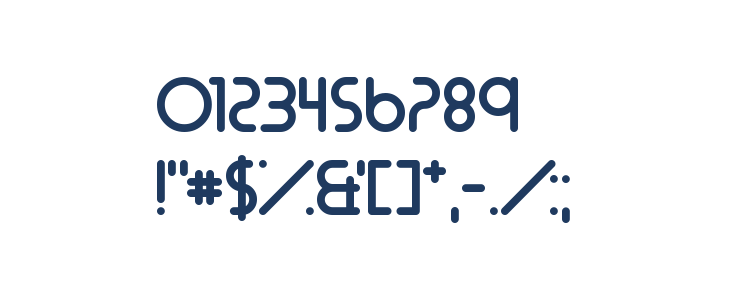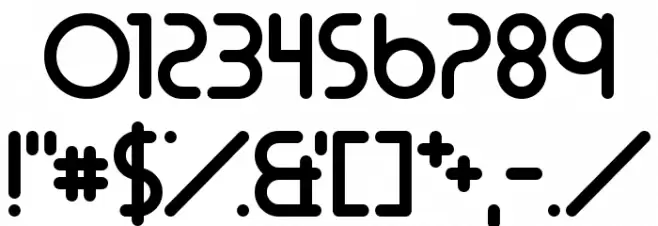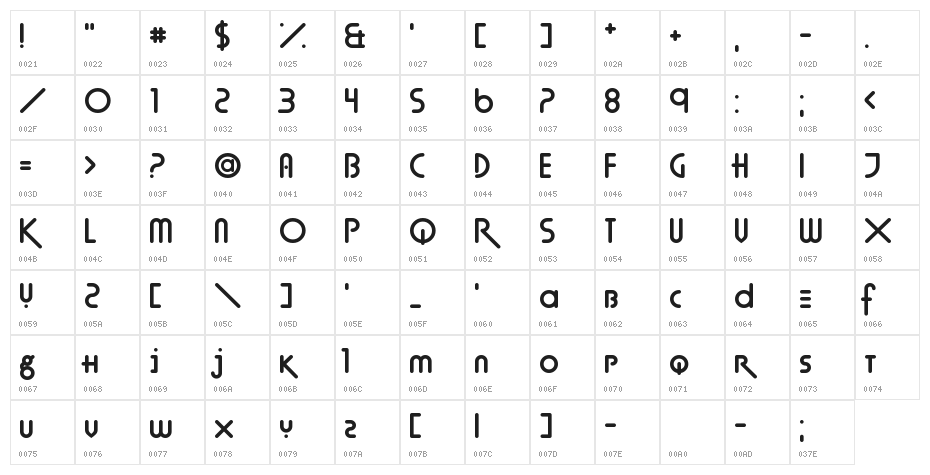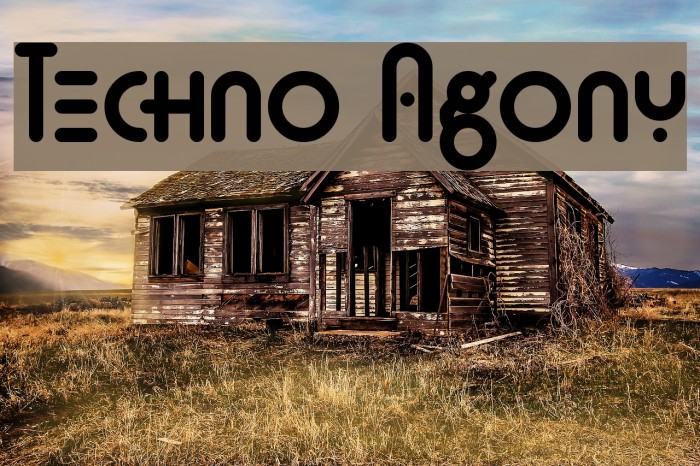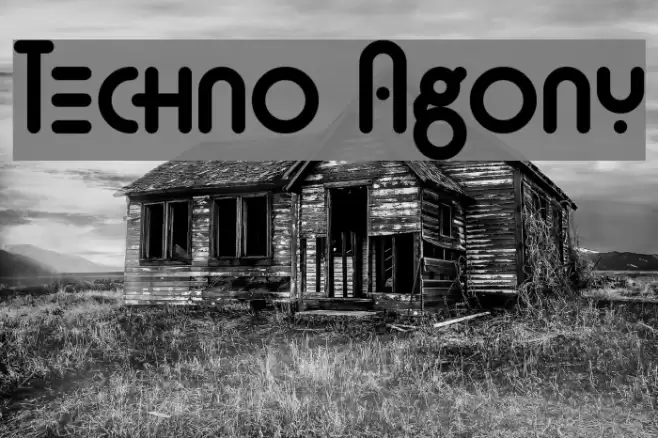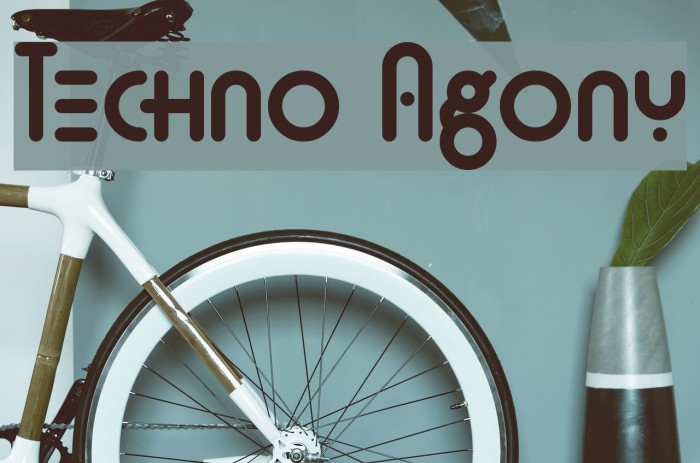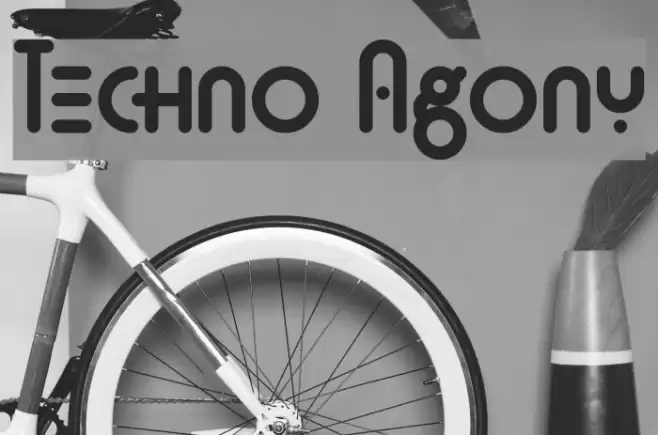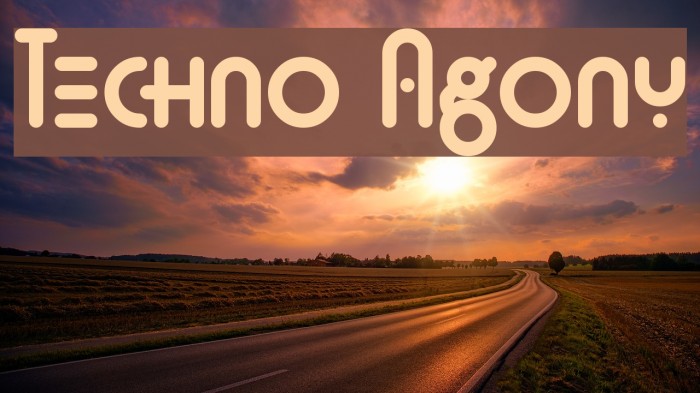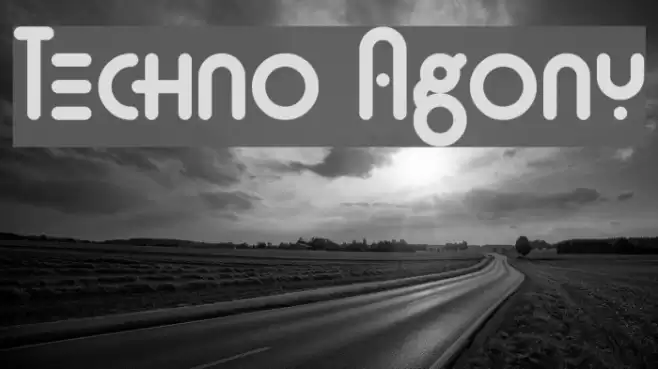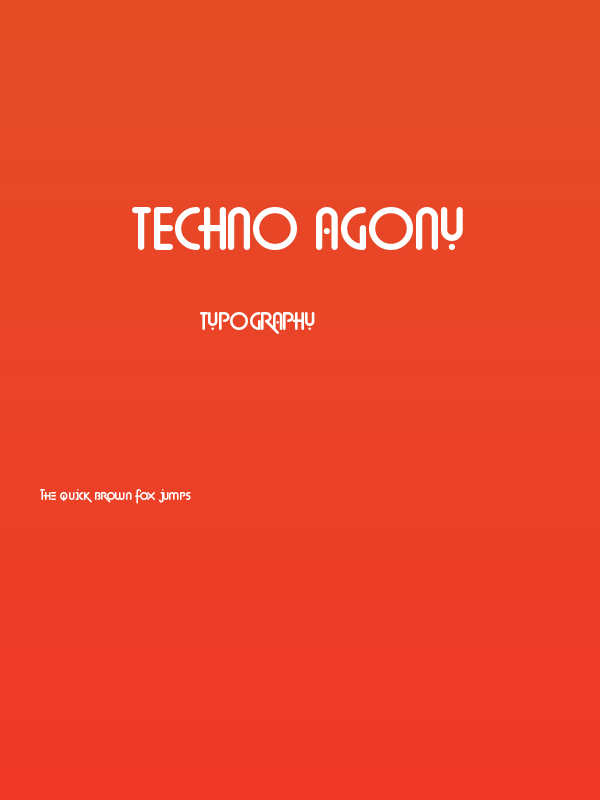
Techno Agony Font
Techno Agony Description
This font features a futuristic and geometric design with rounded edges and a consistent stroke width. The characters are bold and have a unique, techno-inspired aesthetic, making them stand out with their modern and sleek appearance. The uppercase and lowercase letters maintain a uniform style, with some characters incorporating distinctive elements such as slashes or extended lines. The numerals and special characters follow the same design principles, ensuring a cohesive look across all glyphs. This font is ideal for projects that require a contemporary and digital feel.
| Proposed Projects | Ideal for technology branding, digital media, video game design, and sci-fi themed projects. |